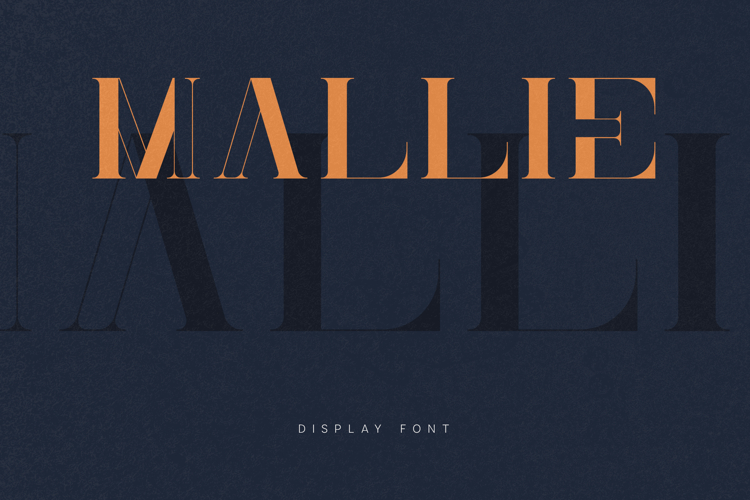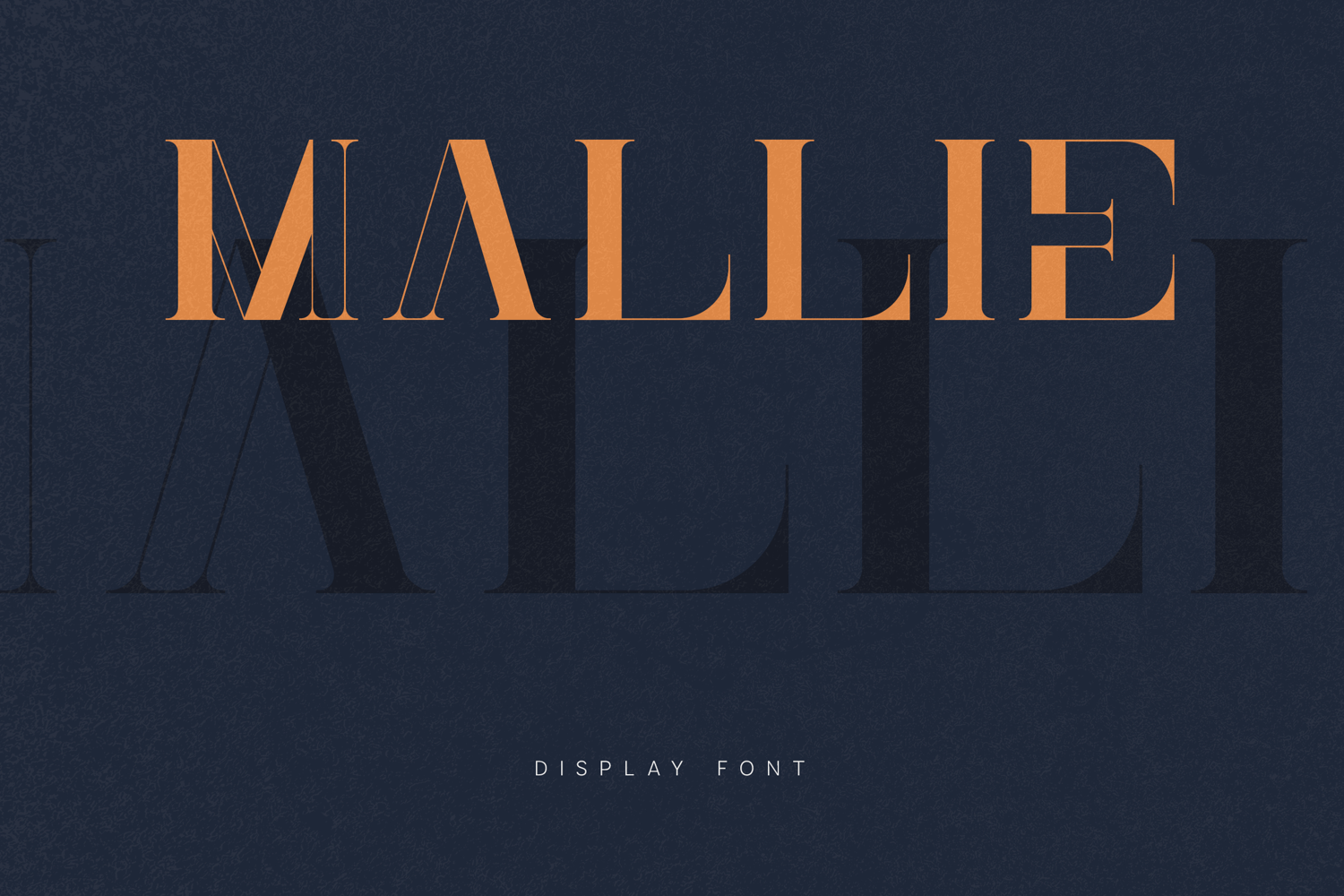
Mallie Elegant Modern Serif Display Font
Mallie is a refined modern serif display font crafted for elegant typography and high-impact visual design. The typeface features graceful high-contrast strokes, sharp serif details, and balanced proportions that give it a sophisticated and contemporary appearance.
Designed with a strong editorial character, Mallie blends classic serif elegance with modern display aesthetics. The letterforms create a luxurious rhythm that works beautifully in large typography settings while still maintaining clarity and harmony.
Mallie is particularly well suited for editorial layouts, fashion-inspired typography, branding projects, magazine headlines, posters, luxury packaging, and modern visual identities. Its refined contrast and elegant shapes allow designers to create expressive compositions that feel both timeless and contemporary.
The typeface includes uppercase letters, lowercase letters, numbers, punctuation, and extended multilingual characters, allowing it to support a wide range of languages and international typography needs.
With its elegant high-contrast structure and editorial personality, Mallie offers designers a sophisticated serif typeface for modern display typography.